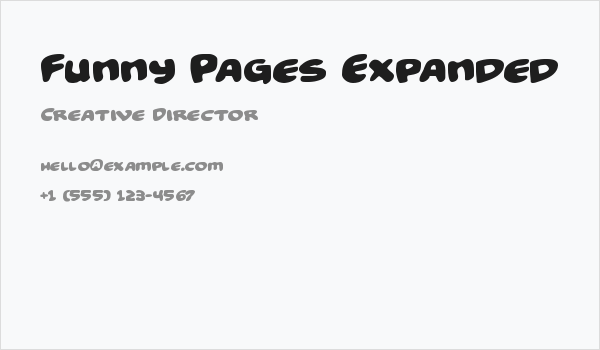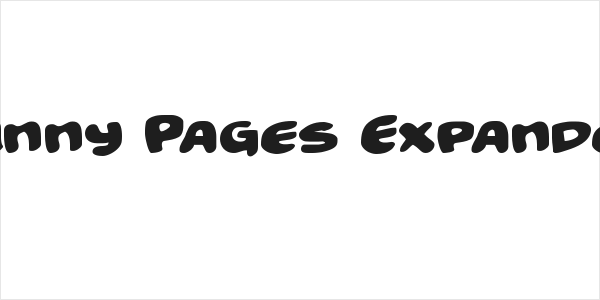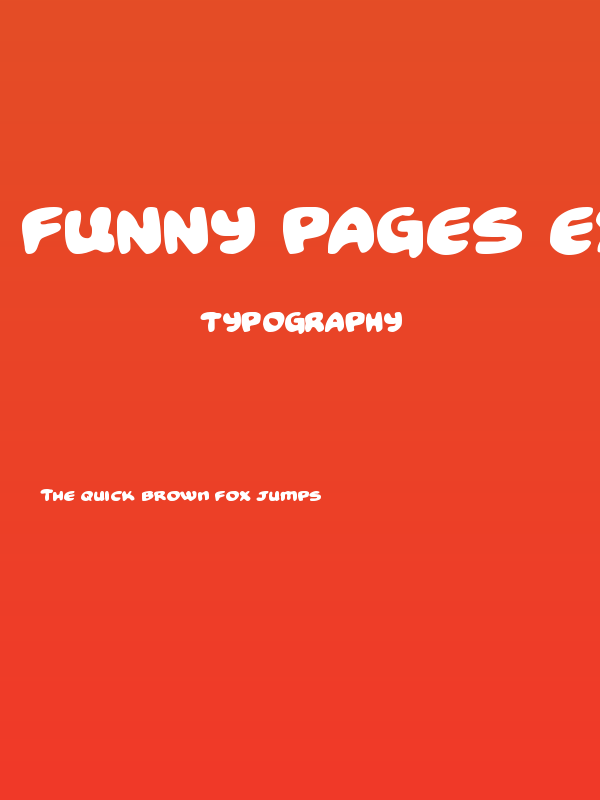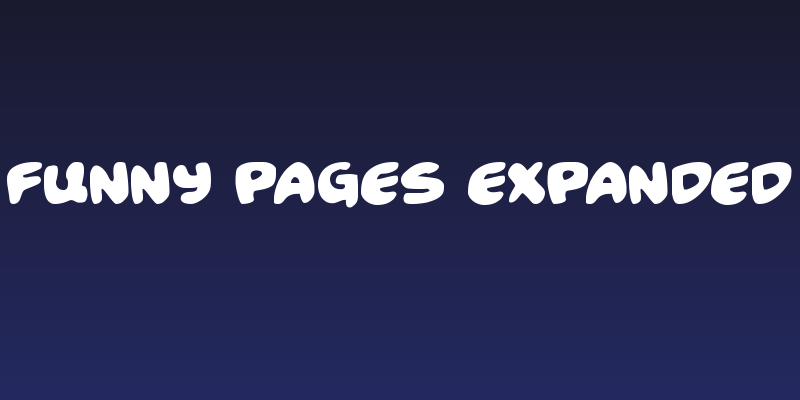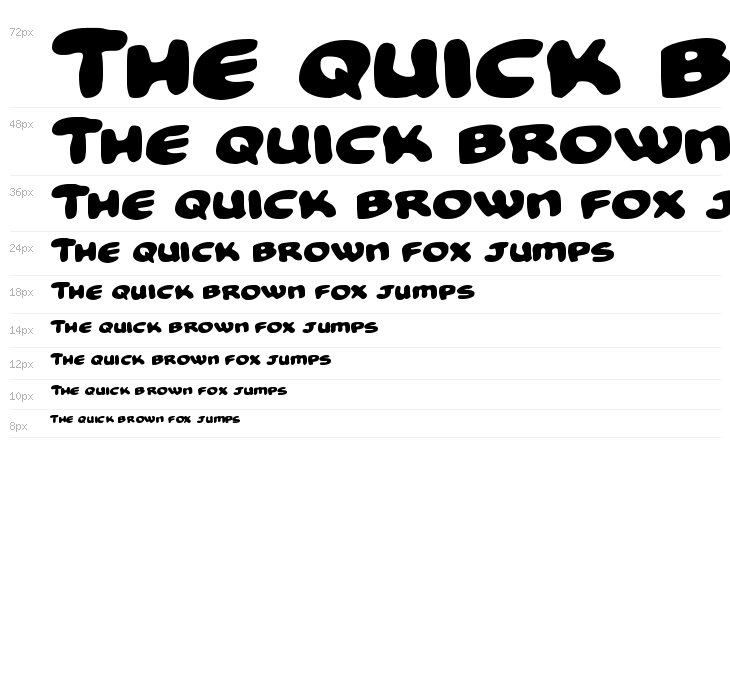
Funny Pages Expanded Font
Funny Pages Expanded Description
This playful and bold font features rounded, bubbly characters that exude a sense of fun and whimsy. The letters are thick and have a soft, almost cartoonish appearance, making them highly legible and eye-catching. The font maintains a consistent weight throughout, with smooth curves and a slightly expanded width that adds to its friendly and approachable style. The numbers and special characters follow the same design principles, ensuring uniformity across all glyphs. This font is perfect for projects that require a lively and informal touch.
| Overall Style | Playful, Fun, Cartoonish |
| Proposed Projects | Ideal for children's books, comic strips, playful branding, party invitations, and any project requiring a lighthearted and engaging typeface. |